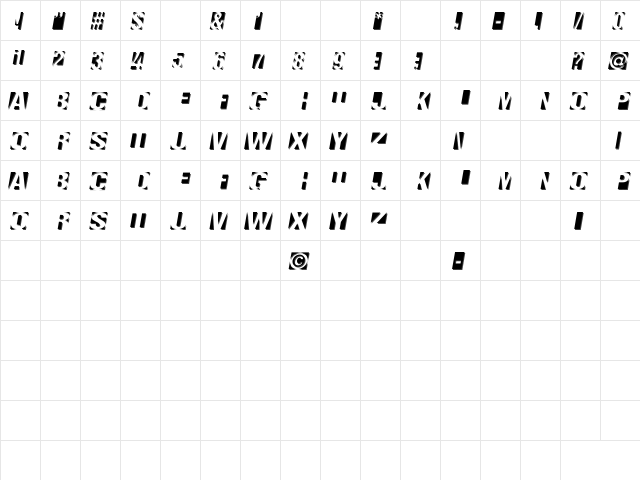
Negatron Regular
| Designer | Kirk Shelton |
Design Context for Negatron Typeface
Negatron is a composed and adaptable typeface that performs quietly and consistently across a wide range of design contexts.